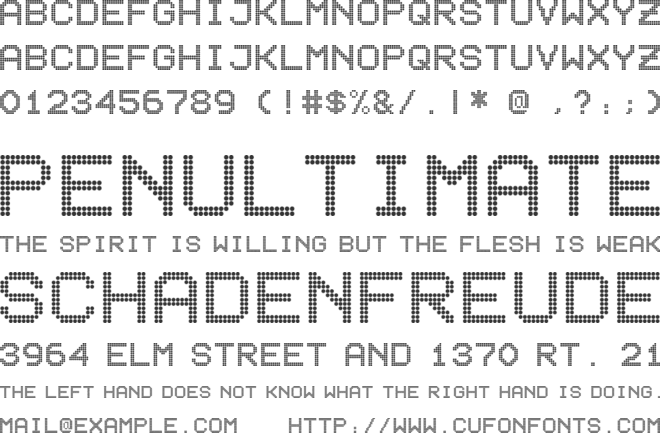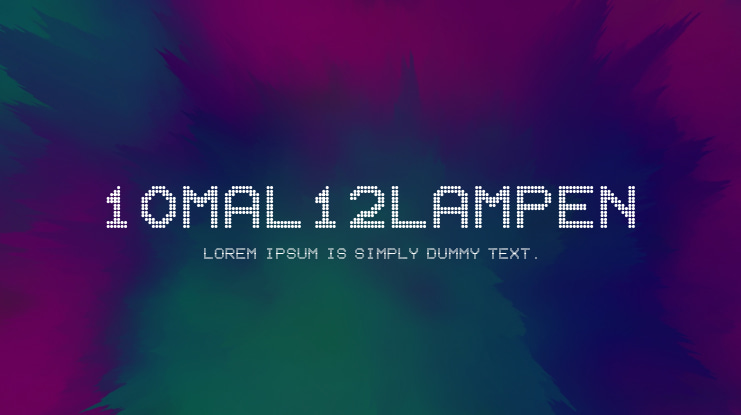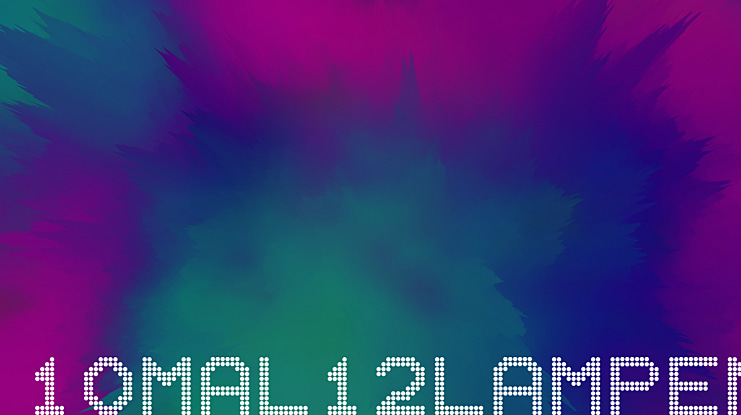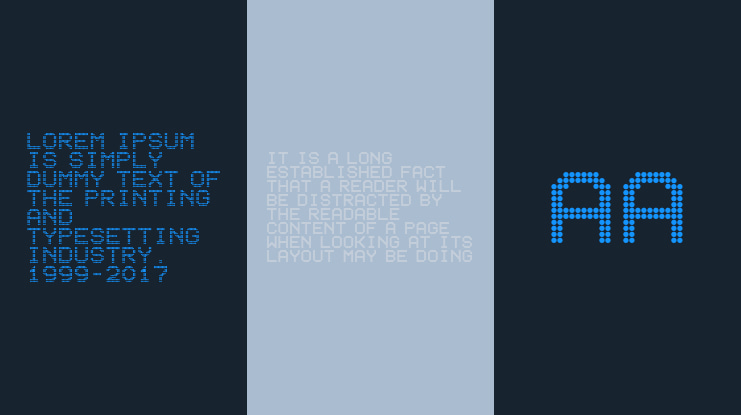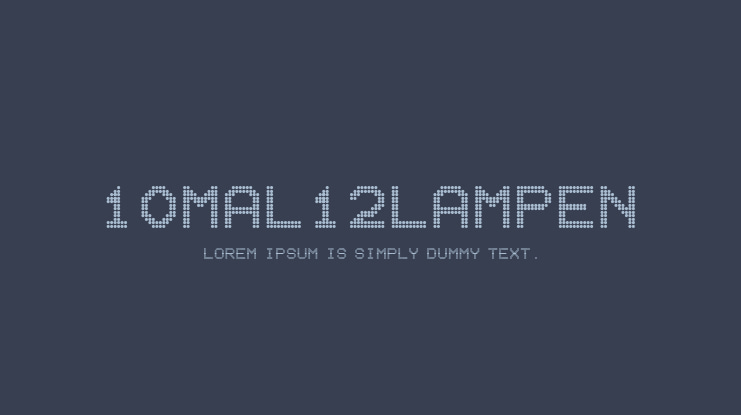
10mal12Lampen Font
Peter Wiegel
Around 1970, the newly manually entered score displays gradually disappeared from the stadiums of the upper class classes. They were replaced by the first electronic scoreboards, which could then give more information to the viewer. There were still bulbs that shaped the letters. This is the middle font size, in which one letter 2 incandescent rows the lines of the font shaped, so with 10 times 12 incandescent lamps on the surface of a letter